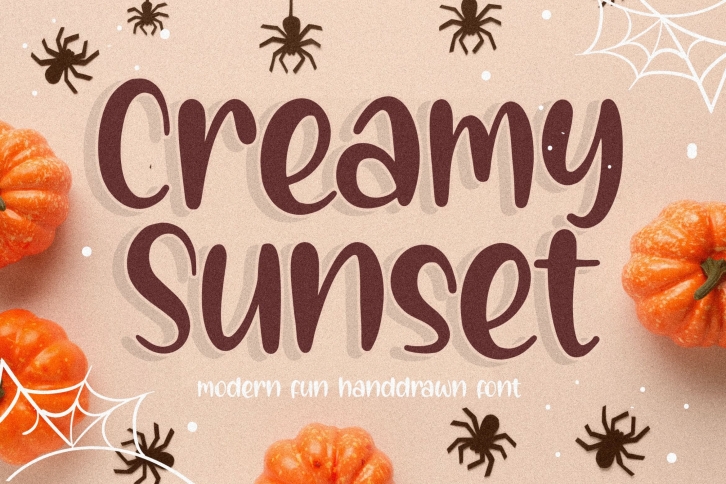
Proudly Present, Creamy Sunset Font
Creamy Sunset is a flowing, round lettered handwritten font, described by an elegant touch. Fall in love with its incredibly distinct and timeless style and use it to create spectacular designs!